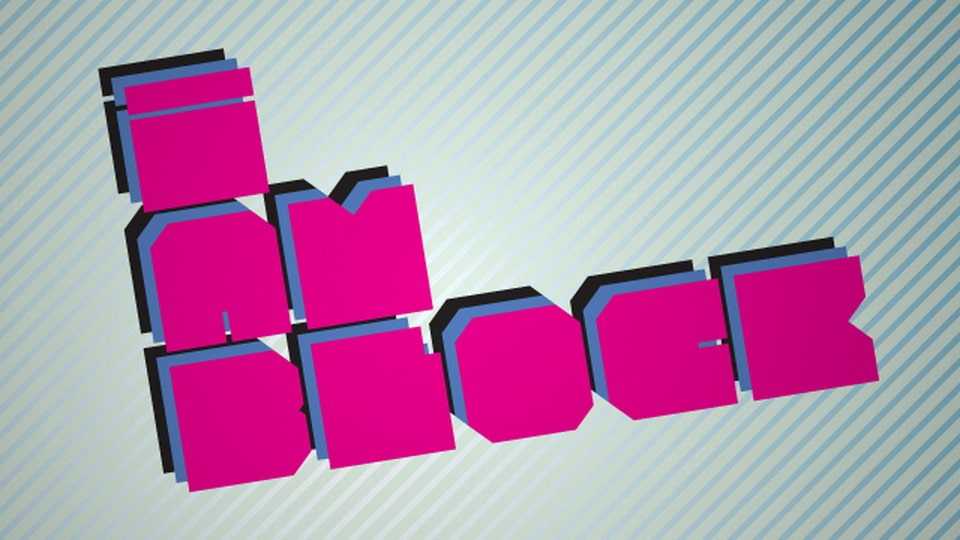
Download Iamblock font, a super heavy monospaced display typeface that makes a statement. Iamblock font was developed with the rave and party scene in mind, with lots of bright, bold colors mixed with blacks and whites